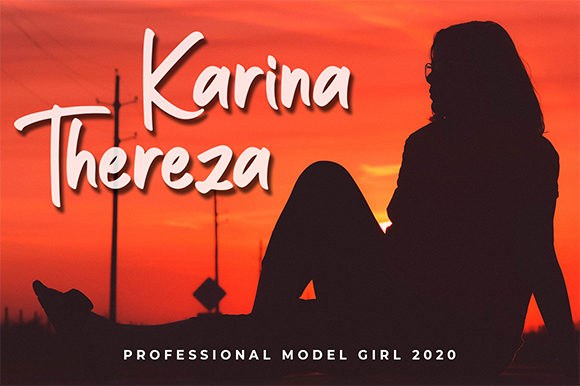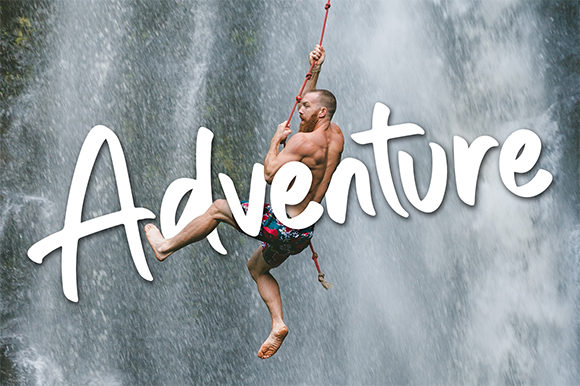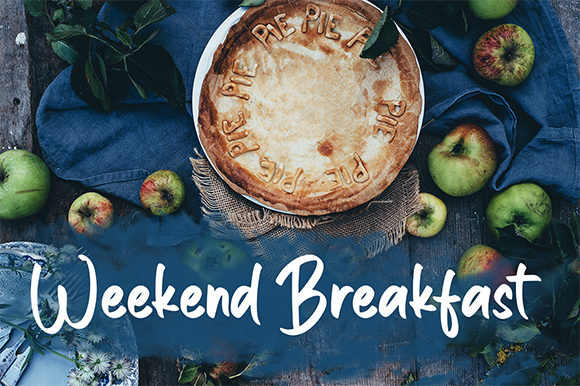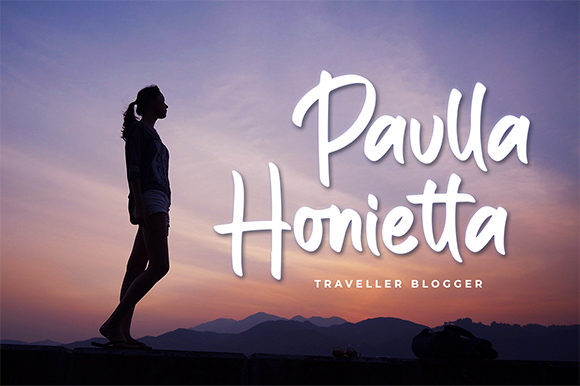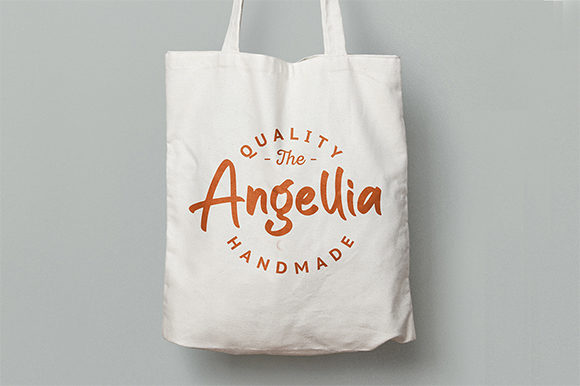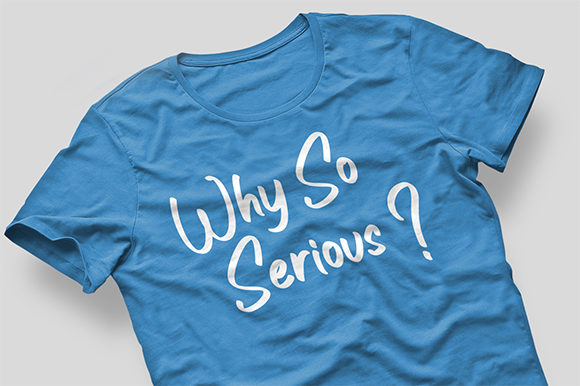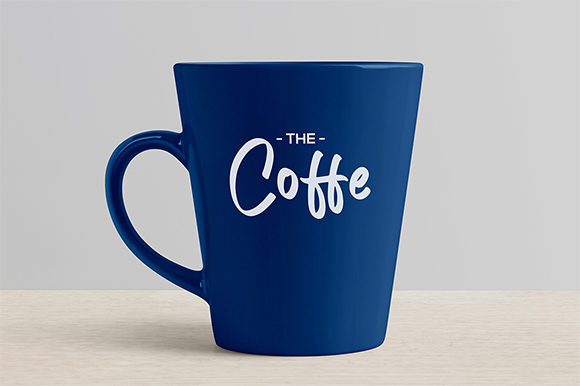
Angellia Font
About Angellia Font
Angellia is an incredibly appealing script font that feels both authentic and elegant. Get inspired by its unique charm!